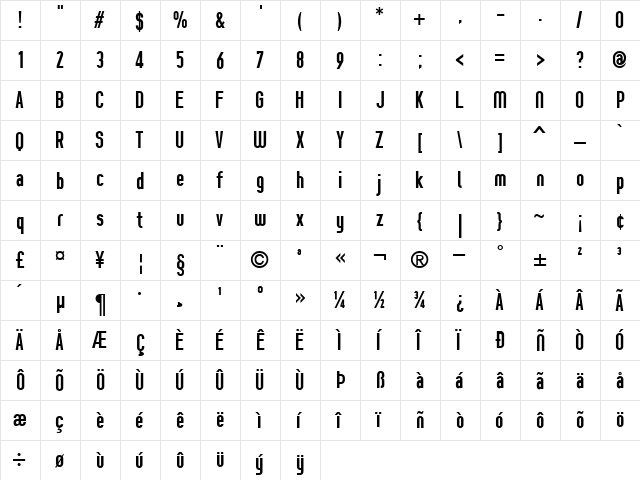
Prozak Bold
| Foundry | studio Kmzero |
| Designer | Francesco Canovaro |
Design Context for Prozak Typeface
Prozak is a composed and adaptable typeface that performs quietly and consistently across a wide range of design contexts. The heavy weight commands attention and anchors typographic hierarchies.